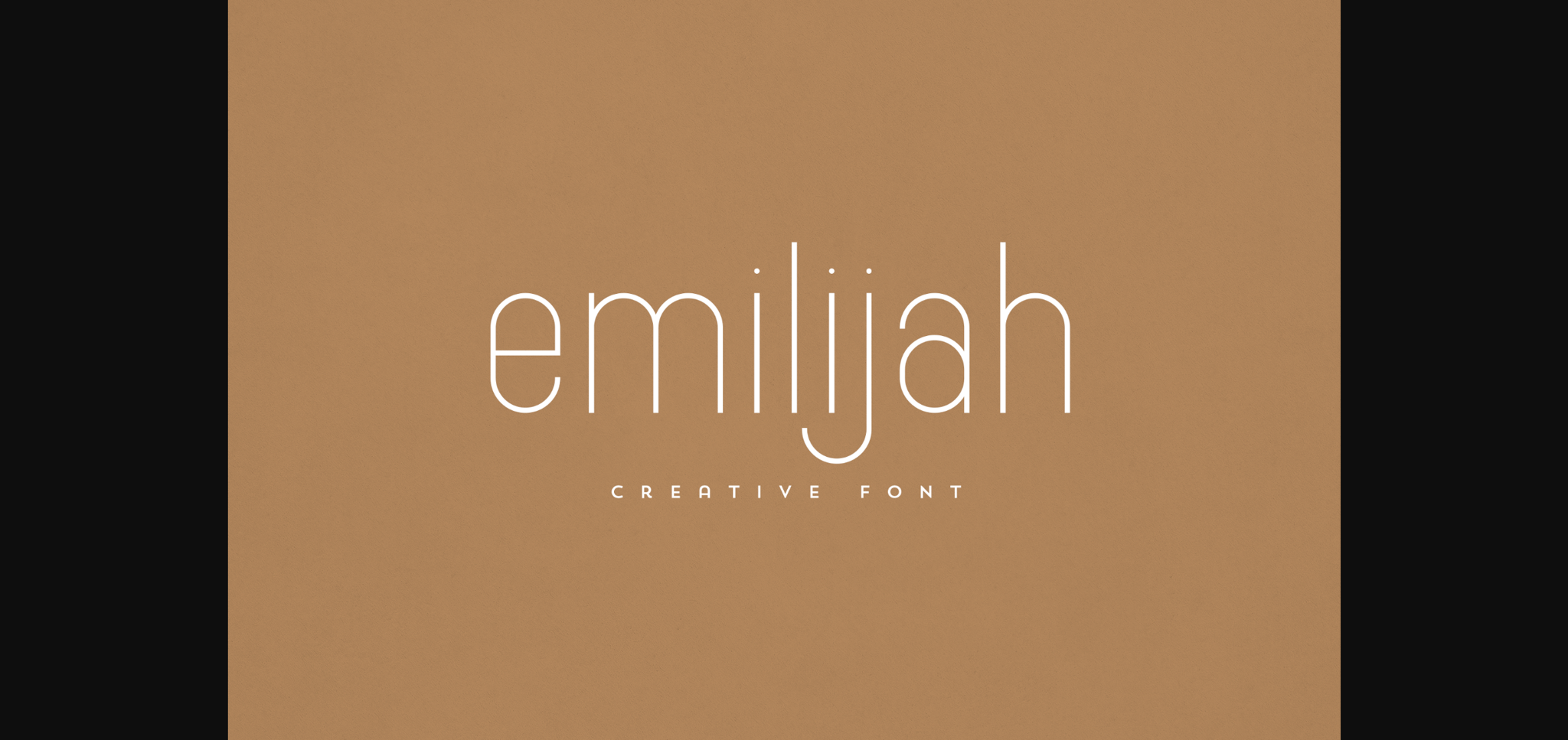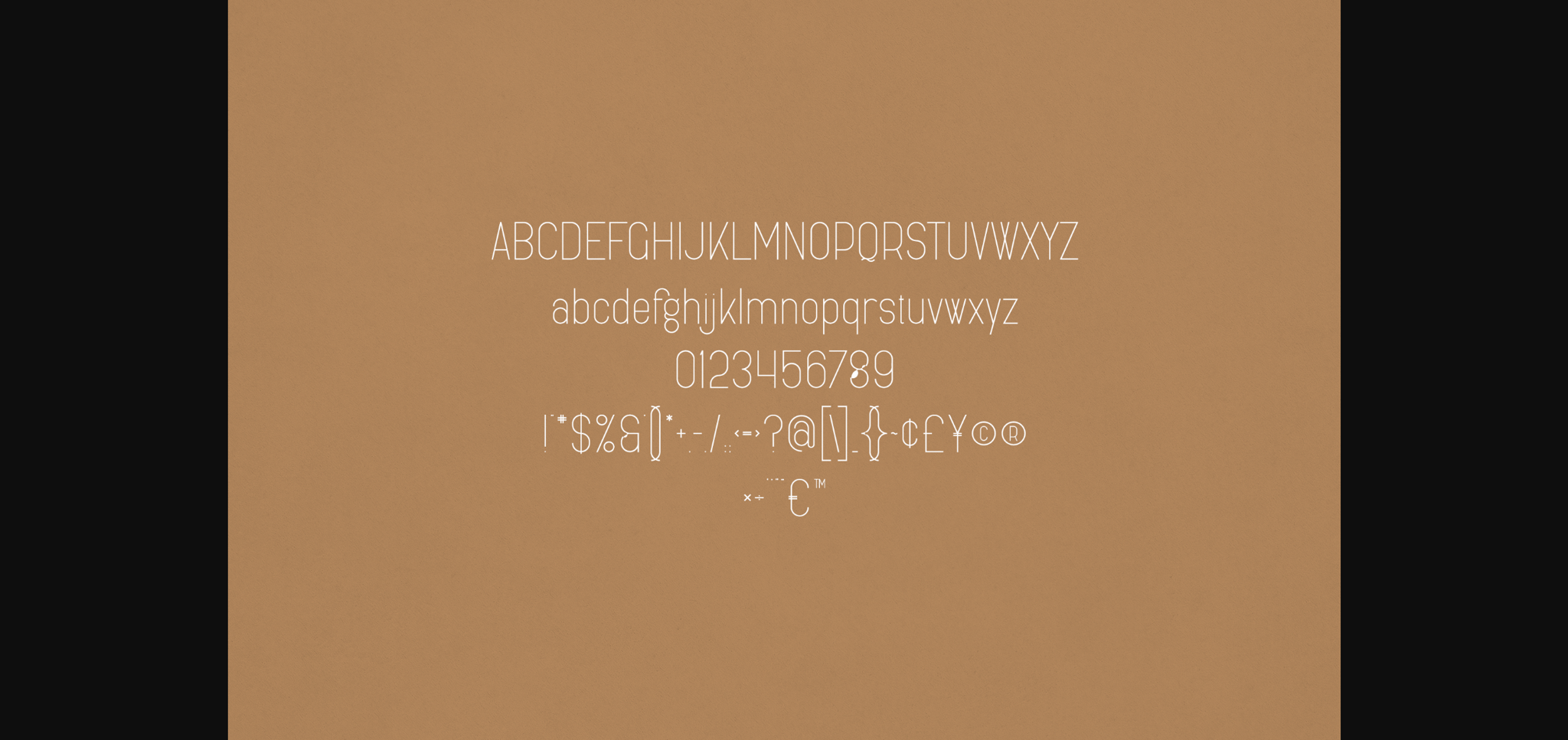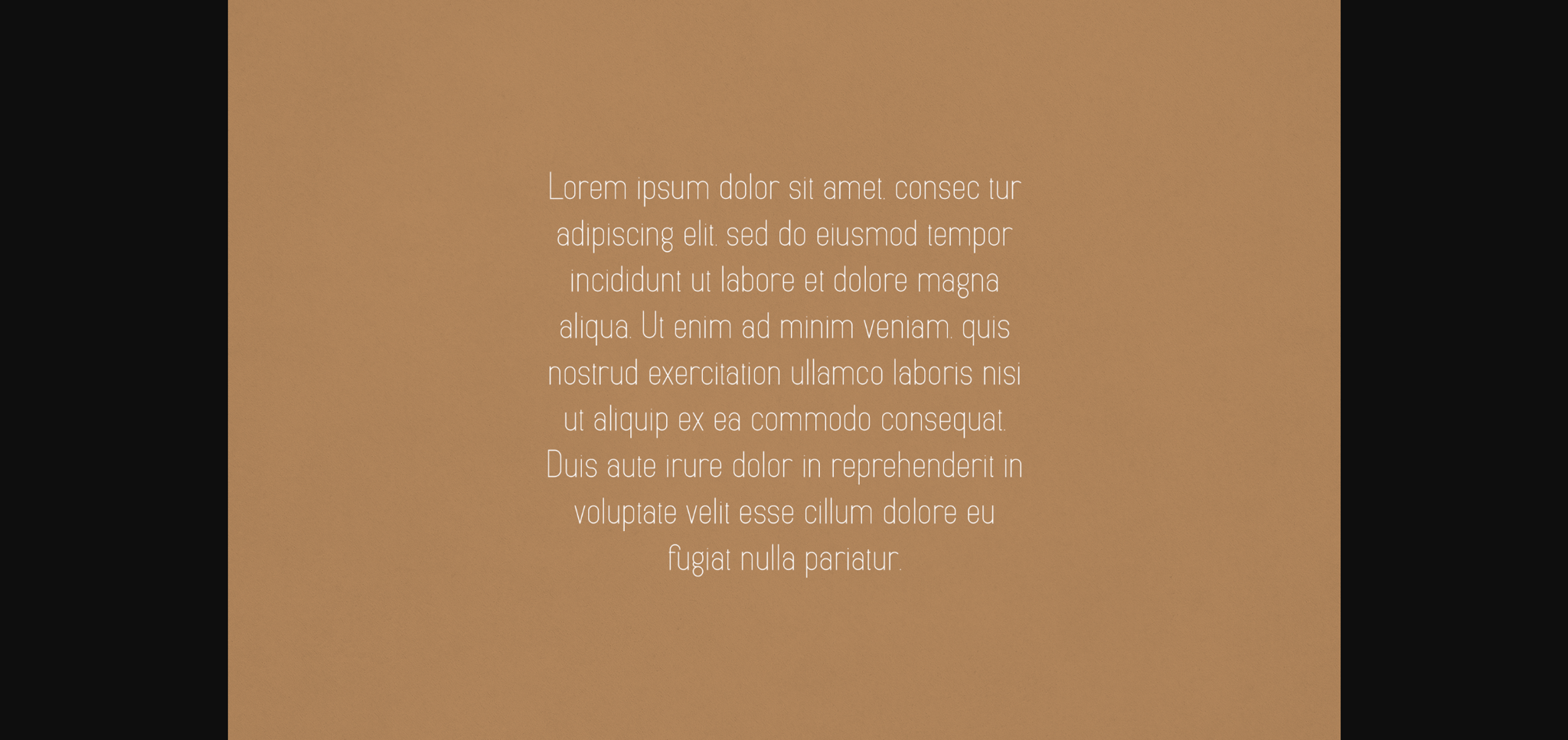
Emilijah Font
About Emilijah Font
Emilijah is an elegant and versatile sans serif font that will make your typography truly unique! It will enchant every logo, branding, headline, or plain text!